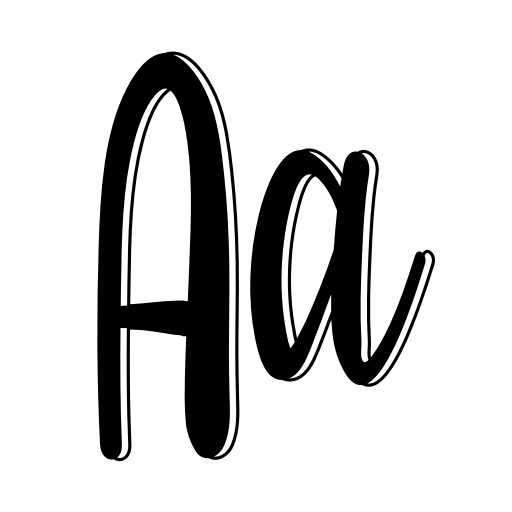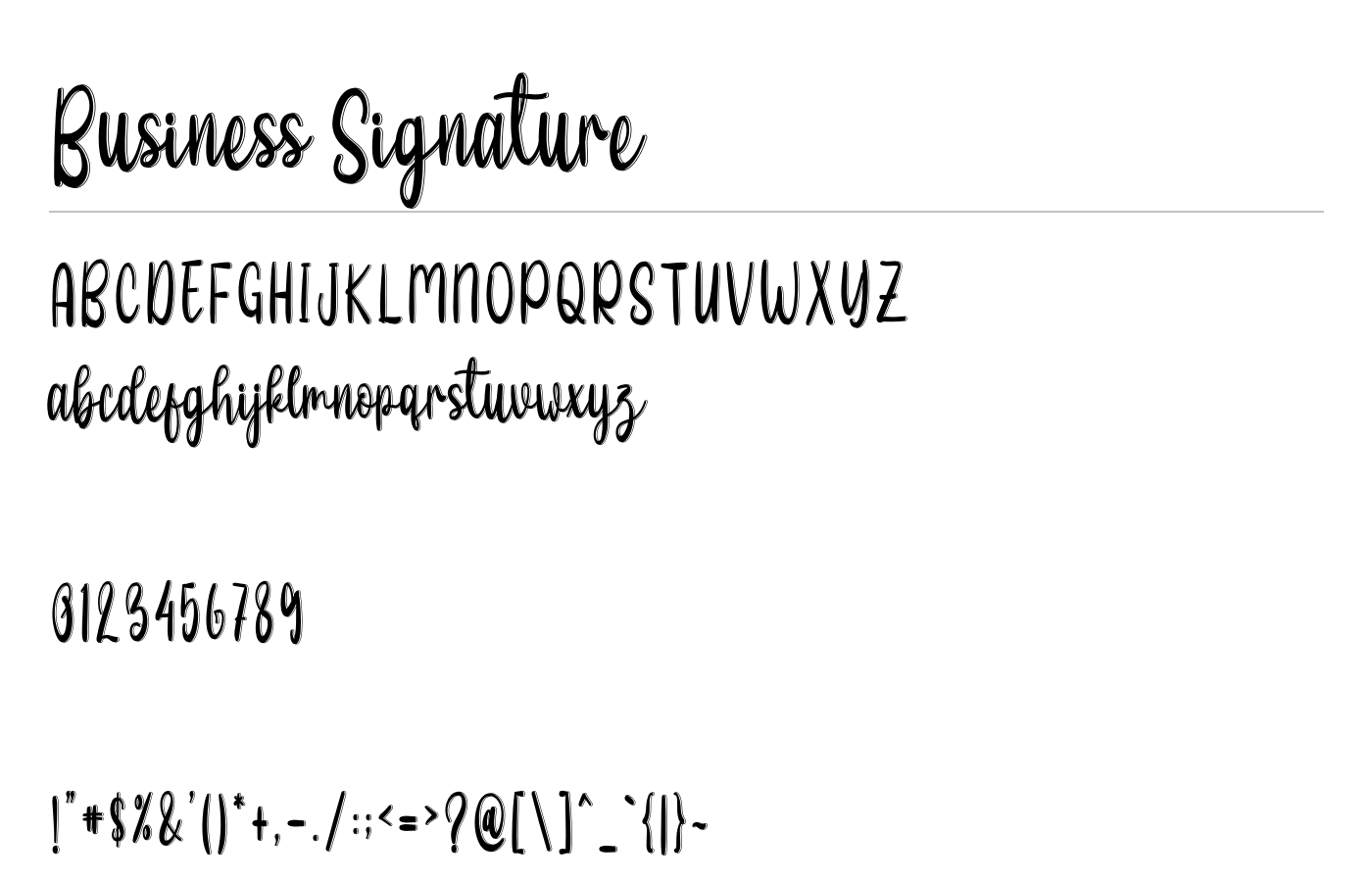
Business Signature Font is a playful and elegant handwritten script with a casual, friendly vibe. Its tall, narrow letterforms with varied stroke thickness and smooth curves make it ideal for creative branding, invitations, and personal projects where a personal touch or flair is desired. This font works best in headlines or logos that want to convey warmth and approachability with a modern signature style.
Business Signature Font